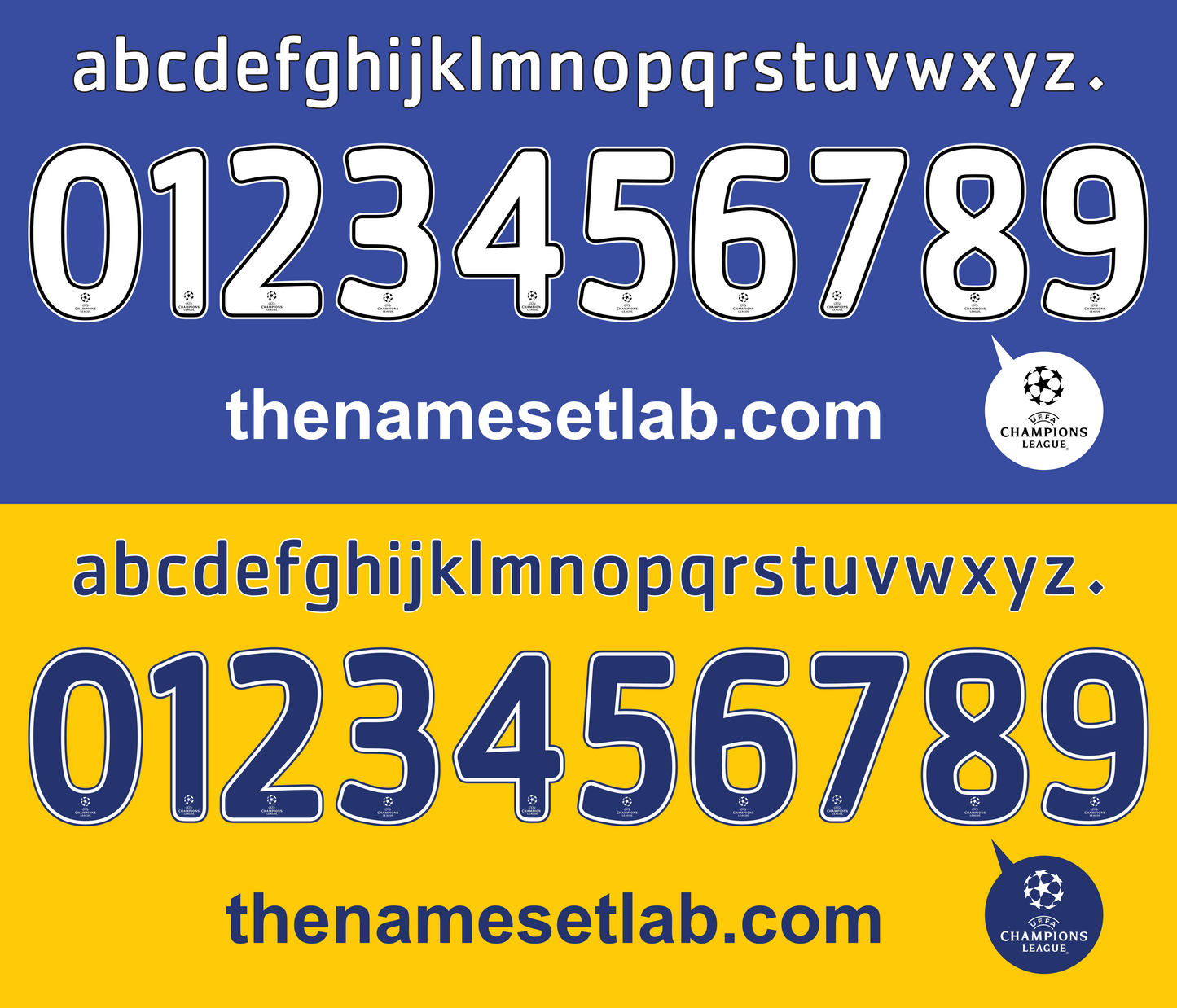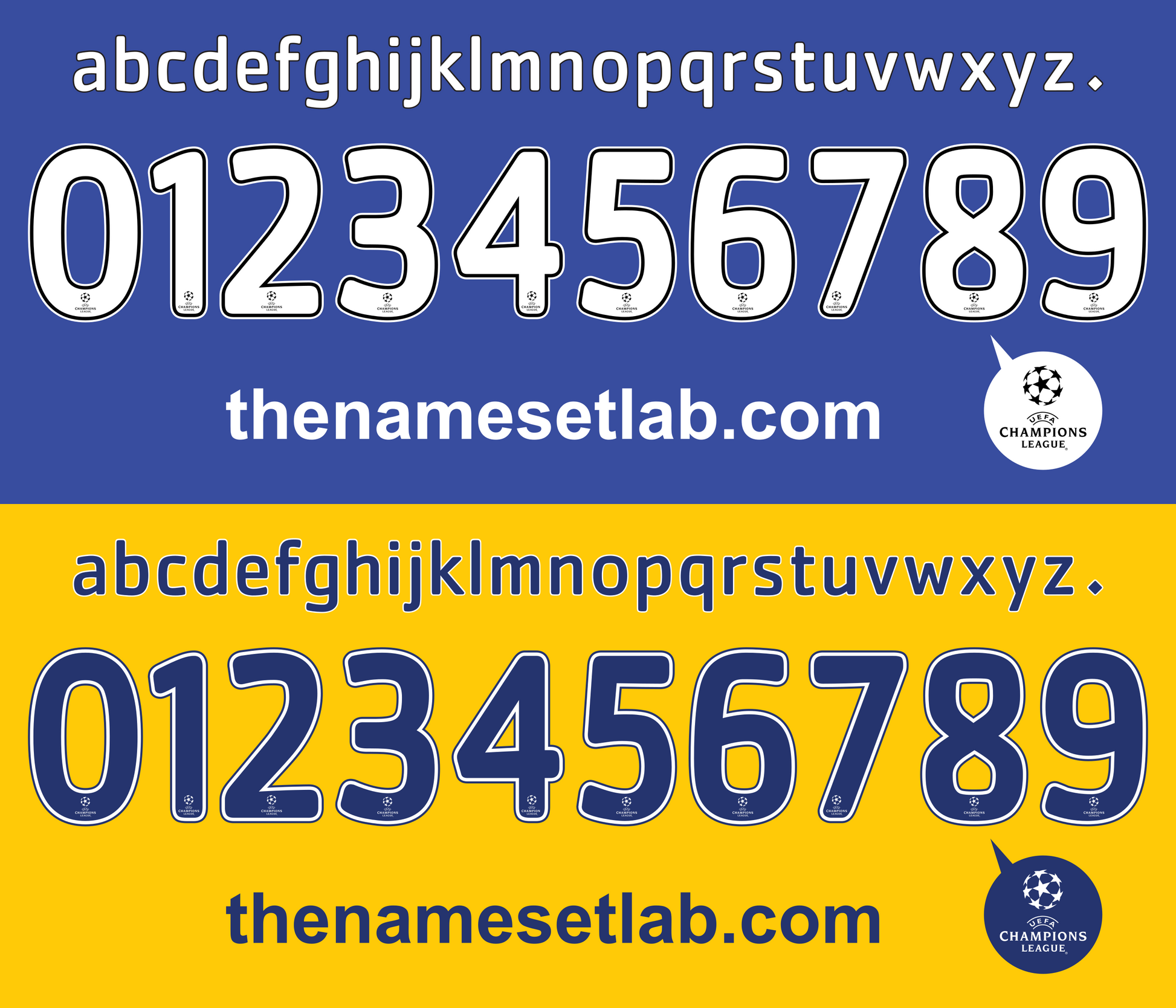
Chelsea 2008-2009 UCL / Cup Font Nameset AI Vector File
Download this Chelsea 2008-2009 UCL / Cup nameset as a clean, editable .ai vector file. Designed with the Chelsea 08/09 font style, it’s ideal for printing Champions League or cup shirts, personal artwork, or adding to your football memorabilia projects.